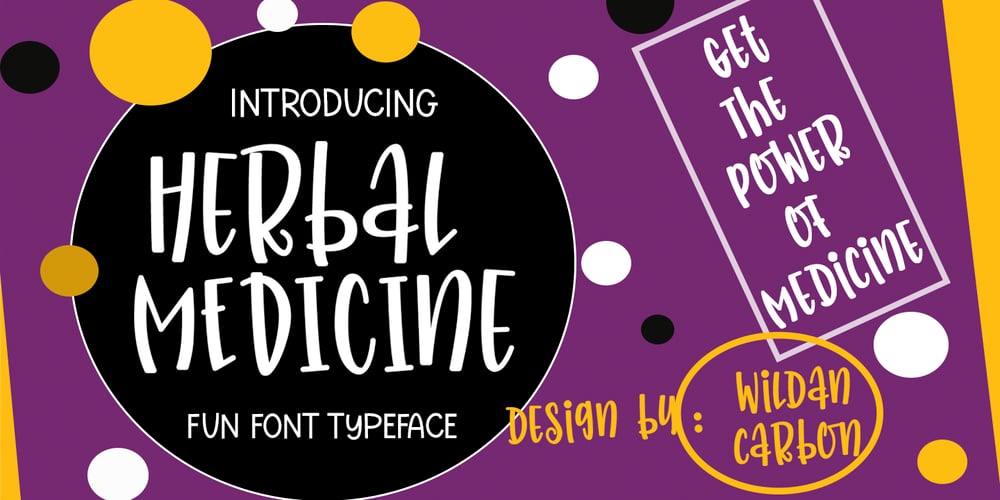
Herbal Medicine Font Family was designed by Wildan Carbon and published by Wildan Type. Herbal Medicine contains 1 styles and family package options. Introducing Herbal Medicine Font !!Herbal Medicine is a fun and quirky handwritten font with a unique style, playful look & feel! embodies fun. Use this gorgeous and unique font to bring any DIY. you also can enjoy many unic alternate style each character.